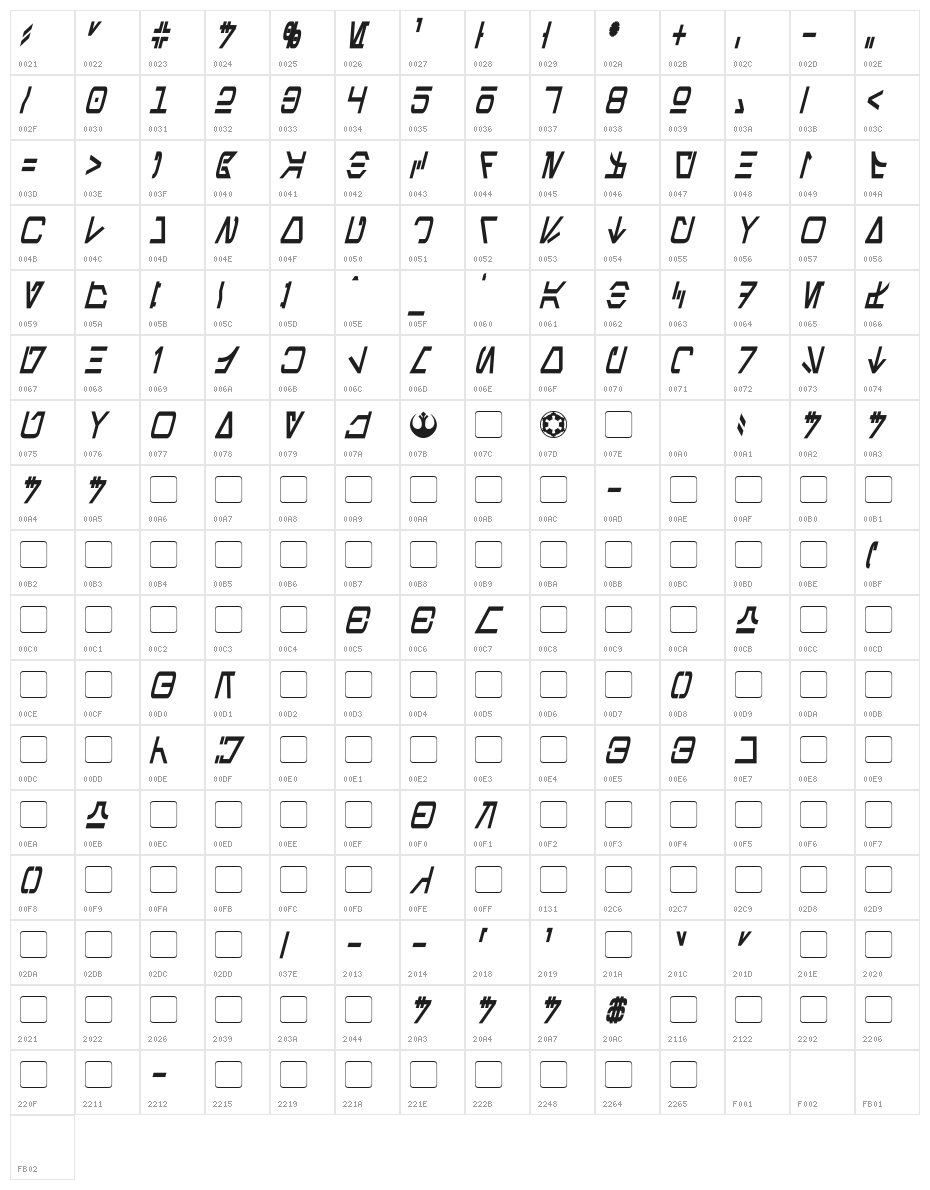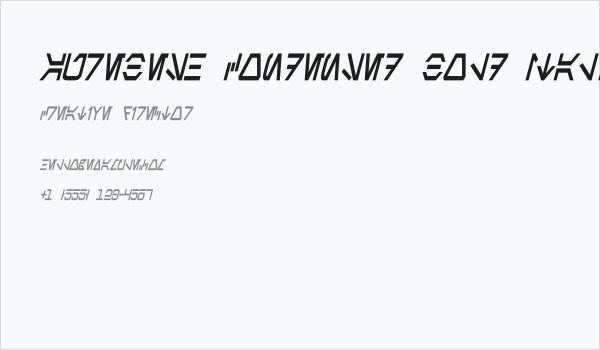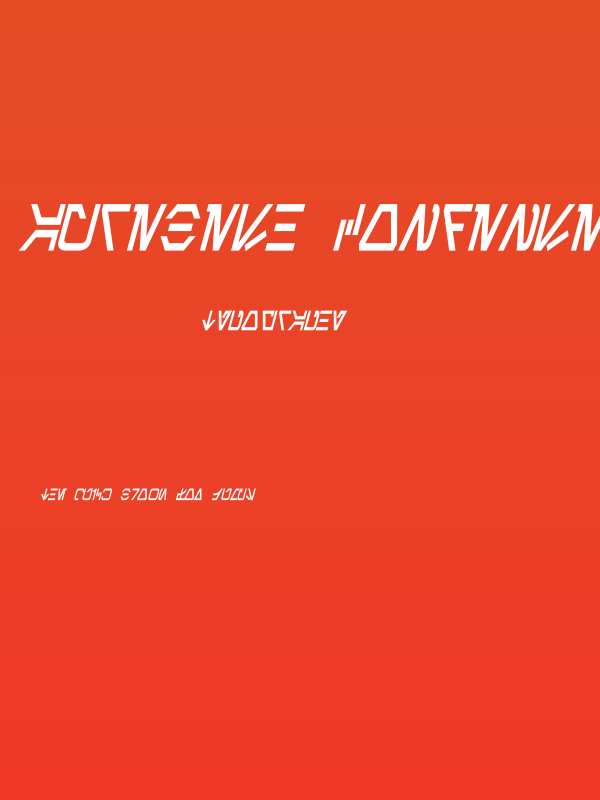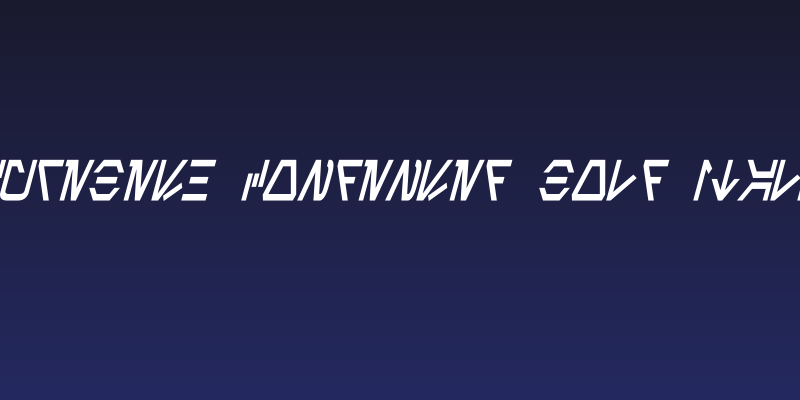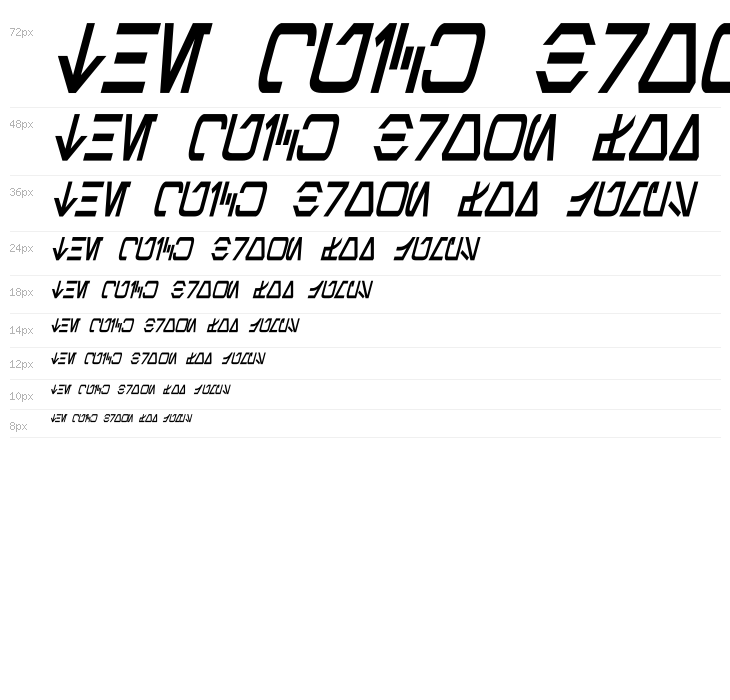
Aurebesh Condensed Bold Italic Font
Aurebesh Condensed Bold Italic Description
This font features a futuristic and angular design, reminiscent of a sci-fi or alien language. The characters are bold and italicized, with sharp edges and a condensed form that gives it a sleek and modern appearance. The strokes are thick and consistent, providing a strong visual impact. The overall style is highly decorative, making it suitable for projects that require a unique and eye-catching typeface. The characters are tightly spaced, enhancing the condensed look, while maintaining readability. This font is ideal for creative projects that aim to convey a sense of otherworldliness or advanced technology.
| Proposed Projects | Ideal for sci-fi themed designs, video game interfaces, movie posters, and branding for tech companies. |